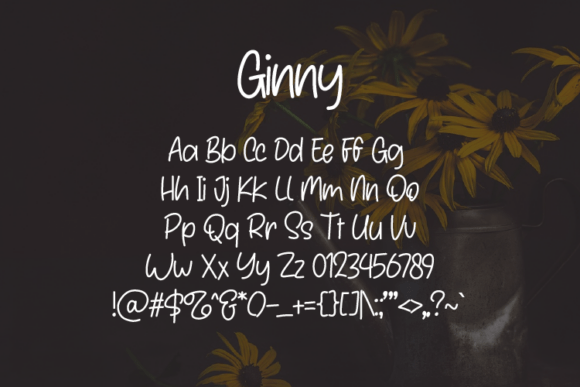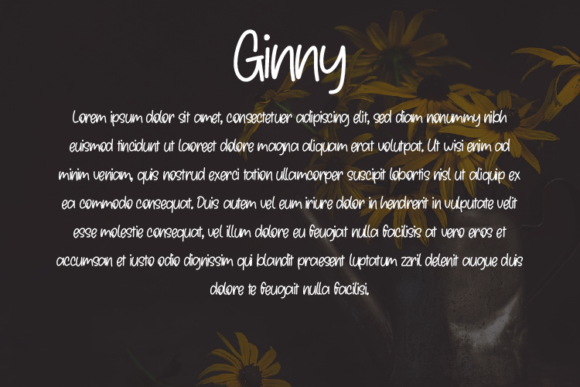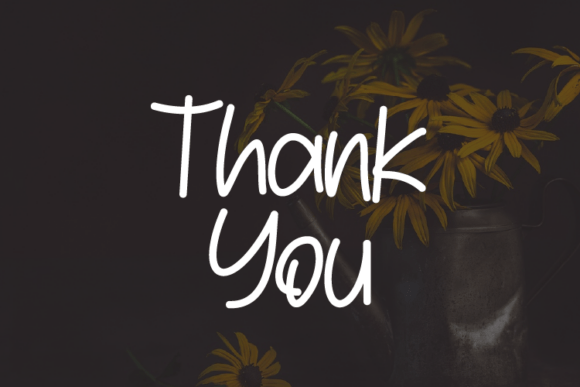
Ginny Font: The Charming Handwritten Typeface for Personal and Creative Projects
In the world of typography, few fonts capture the essence of warmth and personality as effortlessly as the Ginny font. This charming and authentic handwritten typeface is designed to bring a touch of casual elegance and personal connection to any design project. With its organic, slightly irregular strokes and medium weight, Ginny exudes the immediate warmth of genuine penmanship, making it an ideal choice for designers and crafters looking to infuse their work with a friendly and inviting feel.
The Characteristics of Ginny Font
Ginny’s unique characteristics make it stand out in the realm of handwritten fonts. Its organic strokes, which are slightly irregular, give the font a natural and effortless look that resonates with audiences on a personal level. The medium weight of the font ensures that it is clear and legible, making it suitable for a wide range of applications, from personal branding to digital content creation.
One of the key features that make Ginny so appealing is its ability to convey a sense of warmth and approachability. The font’s strokes seem to flow naturally, as if written with a pen or a brush, giving it a distinctly handmade feel. This quality makes Ginny perfect for projects that require a personal touch, such as handmade crafts, personal stationery, and bespoke invitations.
Applications of Ginny Font
The versatility of Ginny font makes it an excellent choice for a variety of design projects. Here are some of the ideal applications for this charming typeface:
- Personal Branding: Ginny’s warm and inviting nature makes it an excellent choice for personal branding, especially for individuals looking to establish a friendly and approachable image.
- Crafting Projects: For crafters and makers, Ginny is a perfect fit for labeling, packaging, and marketing handmade goods, adding a personal and authentic touch to the products.
- Stationery: Whether it’s custom stationery, greeting cards, or invitations, Ginny brings a level of warmth and personality that elevates these items from ordinary to special.
- Lifestyle Blogs: Bloggers focusing on lifestyle, crafting, or personal development will find Ginny to be an excellent choice for their content, as it adds a relatable and engaging feel to their writing.
- Custom Quotes: For designers and crafters who work with custom quotes or inspirational sayings, Ginny offers a beautiful, flowing script that makes the text both impactful and heartfelt.
Why Choose Ginny Font?
In a digital age where uniformity and precision are often the norm, Ginny font stands out by offering a refreshingly personal and organic aesthetic. Here are a few reasons why designers and crafters should consider Ginny for their projects:
- Unique and Personal Touch: Ginny’s handmade feel ensures that any project stands out with a unique and personal touch that resonates with audiences.
- Versatility: The font’s legibility and warmth make it versatile for use in various projects, from digital content to print materials.
- Emotional Connection: By mimicking the natural flow of handwriting, Ginny helps create an emotional connection with the audience, making the content more relatable and engaging.
Ginny font is a charming and authentic handwritten typeface that brings a much-needed personal touch to design projects. Its organic strokes, medium weight, and natural flow make it an excellent choice for anyone looking to add warmth and personality to their work. Whether you’re a designer working on a client’s branding, a crafter labeling handmade goods, or a blogger looking to connect with your audience on a more personal level, Ginny font is sure to meet your needs. With its versatility and heartfelt feel, Ginny is poised to become a favorite in the world of typography.
So, if you’re looking for a font that feels both casual and incredibly personal, consider giving Ginny a try. Its unique charm and authentic handwritten feel are sure to elevate your design projects and help you connect with your audience in a more meaningful way.